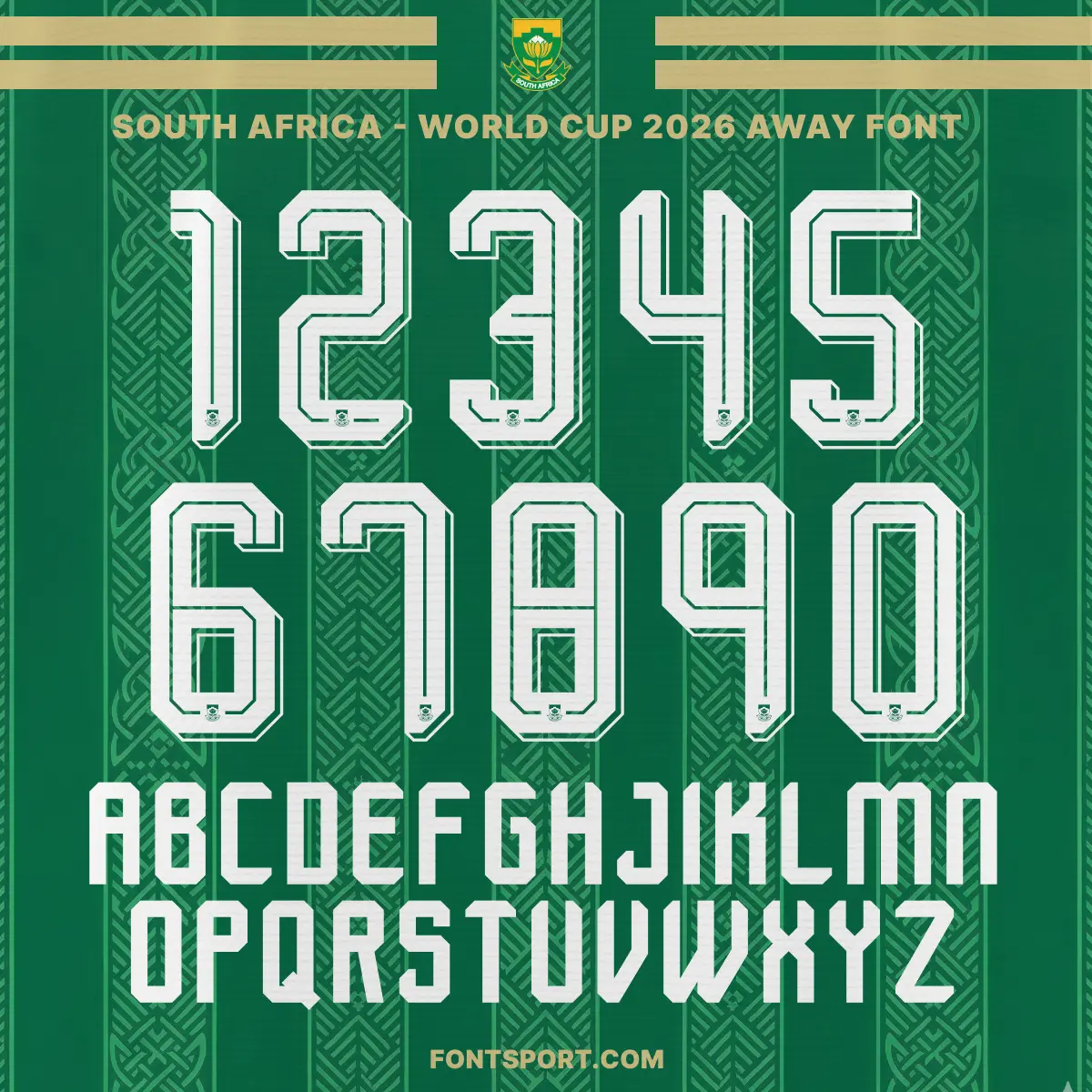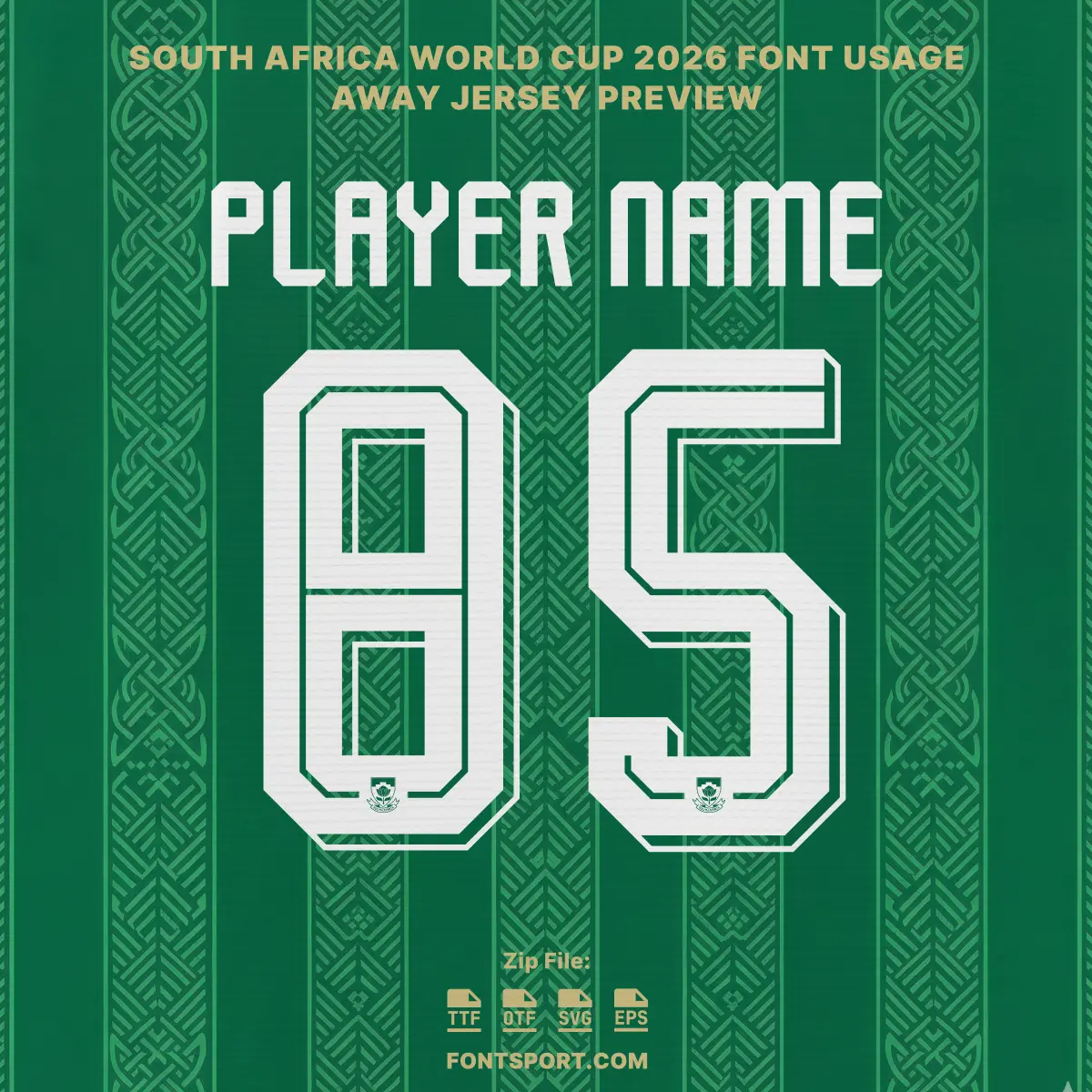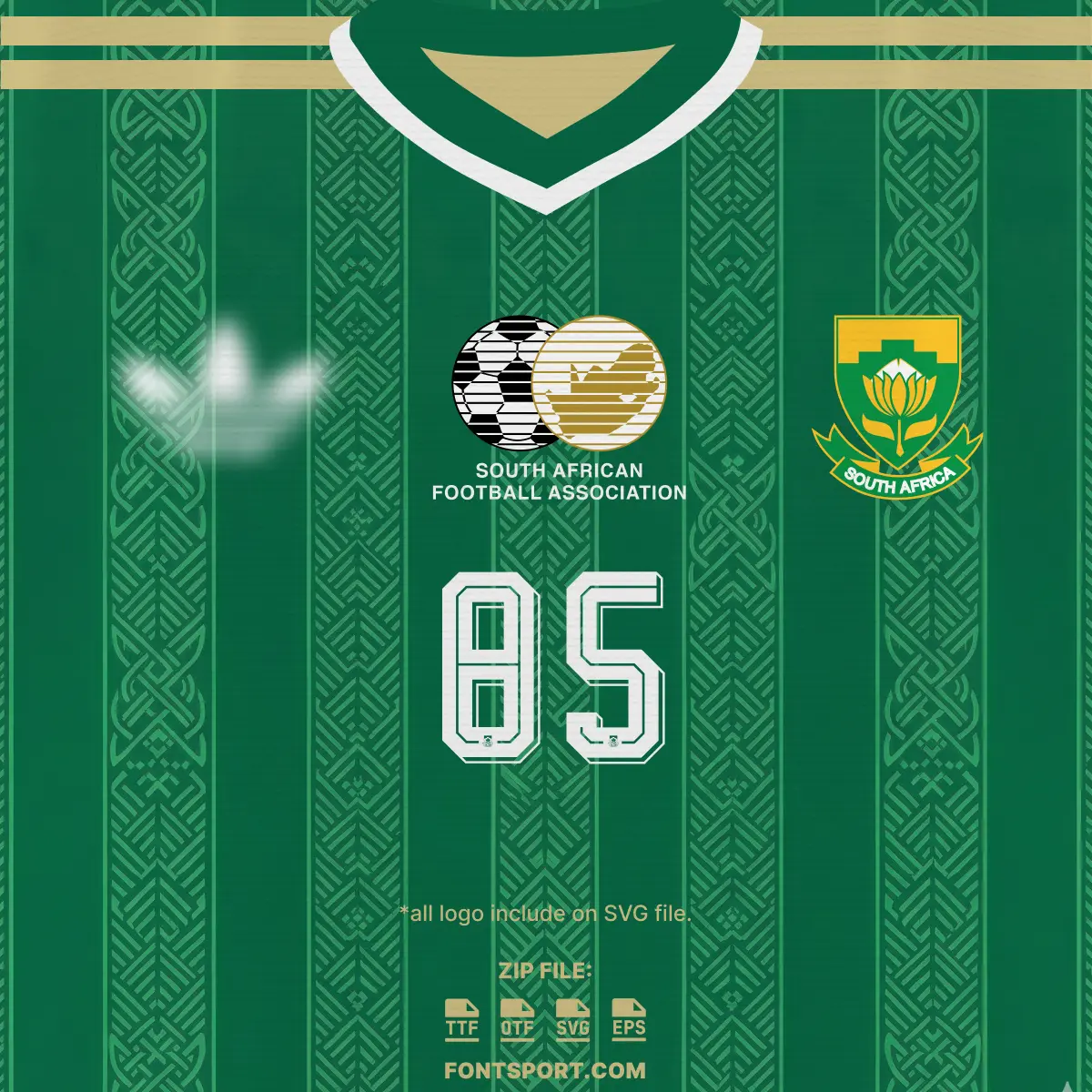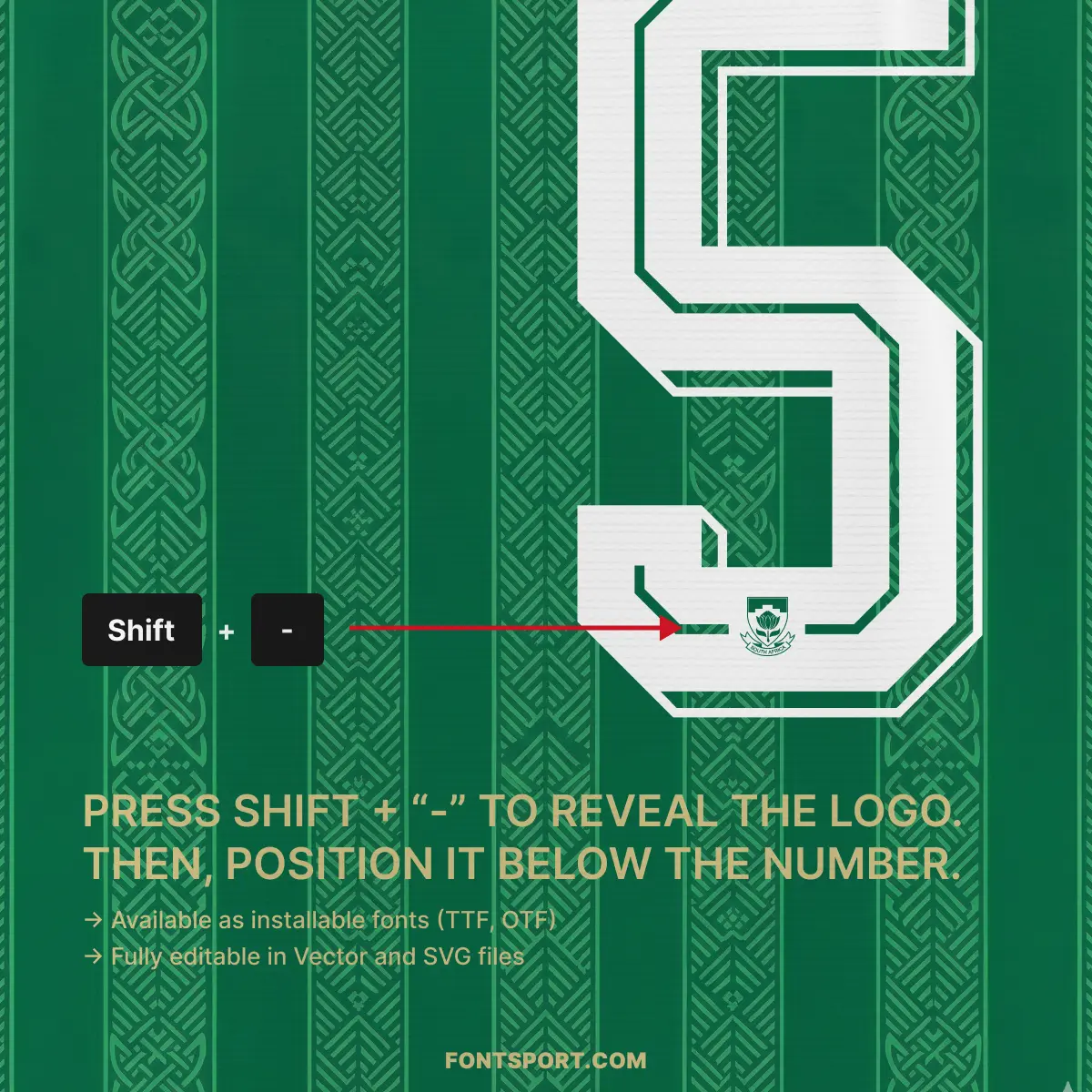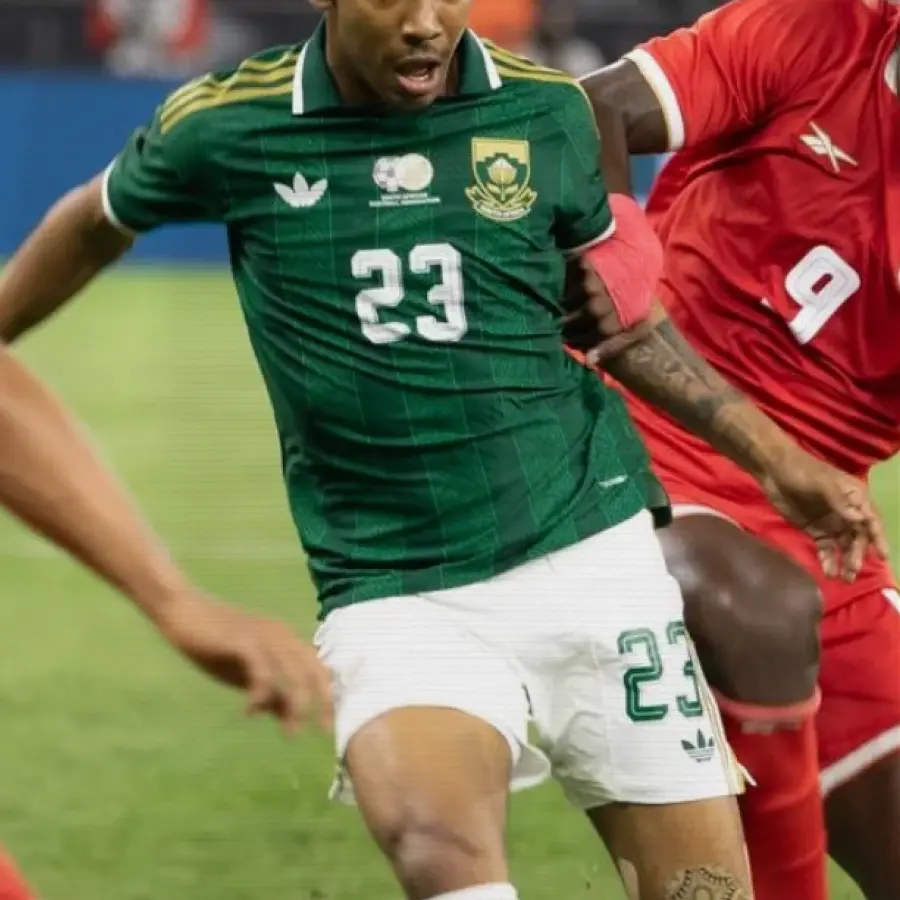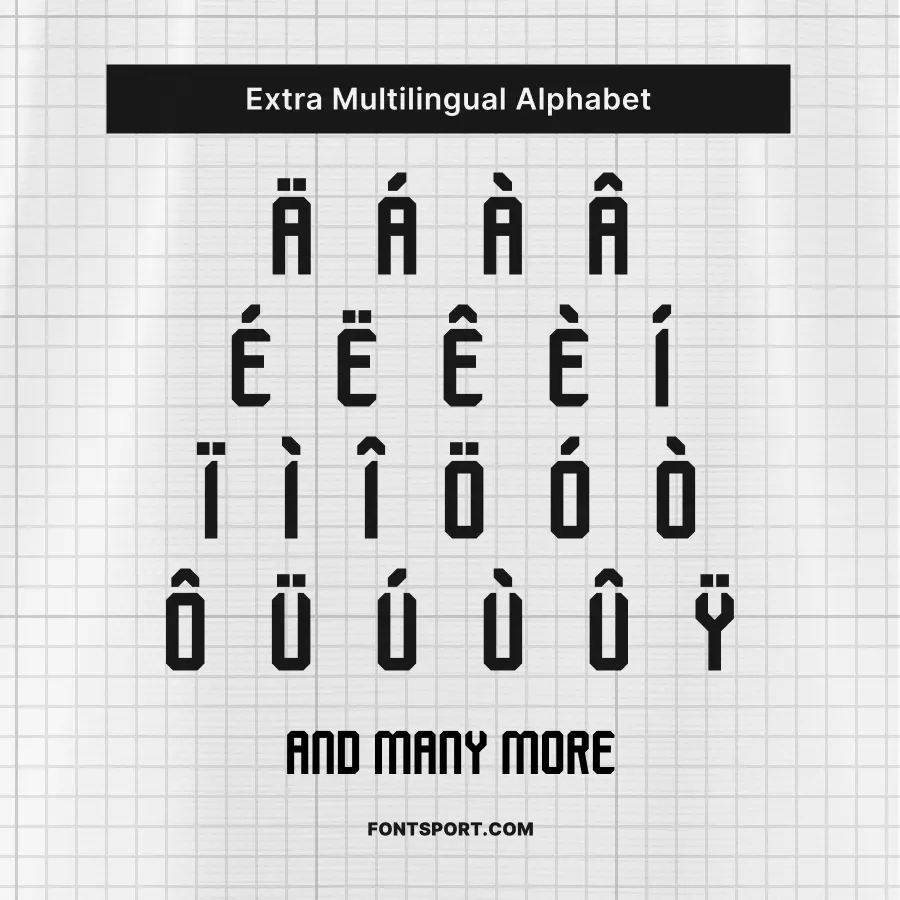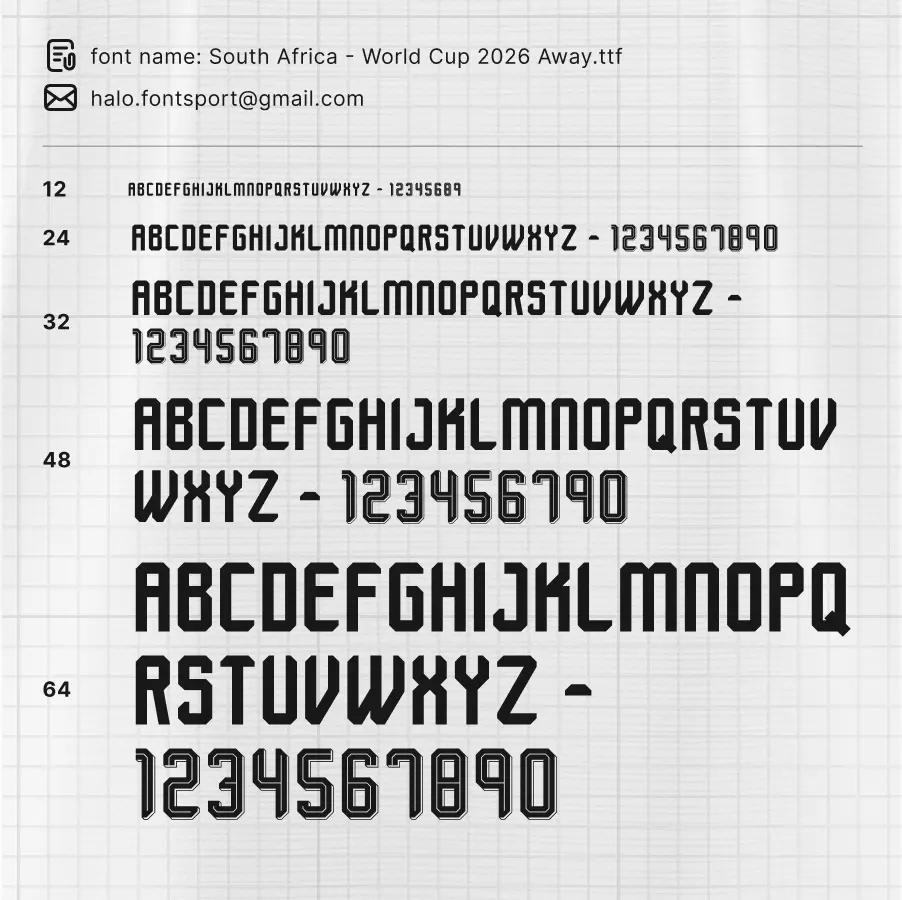
South Africa World Cup 2026 Away Font Kit – Football Typeface
The South Africa World Cup 2026 Away Font Kit captures the “United Spirit” of Bafana Bafana as they return to the global stage for the first time since 2010. This font mirrors the elegant and classic aesthetic of the 2026 away collection, which draws direct inspiration from the iconic 2010 away kit worn during South Africa’s historic hosting of the tournament. Featuring sharp, modern lines and a premium gold finish, this typeface is a key element of the new partnership with adidas, reflecting a sophisticated “Deep Green” identity for the North American campaign.
Complete A–Z Character Set: Features the clean, modern uppercase letters that will be worn by stars like Lyle Foster and Teboho Mokoena.
Full 0–9 Number Set: Optimized for maximum visibility, mirroring the centralized numbers seen in the recent international window.
Extra Multilingual Alphabet: Full support for accented characters, perfect for accurately rendering an international roster.
Integrated Team Identity: Add an authentic finish to your designs by revealing the official-style Protea crest or the classic white Trefoil through simple keyboard shortcuts.
This bundle is ideal for creating personalized football kits, striking match-day graphics, or unique merchandise that celebrates the “12 Voices, One Goal” spirit of South African football.
This font kit is built for designers who want to bridge the gap between historic nostalgia and elite athletic performance:
2010 Heritage Inspiration: Part of a landmark design that pays tribute to South Africa’s golden era through a traditional white fold-over polo collar and gold detailing.
Intricate Tonal Pattern: Specifically designed to complement the away jersey’s fabric, which features subtle geometric and zigzag motifs woven into vertical stripes.
Optimized for Apparel: An ideal font for jersey printing, sports branding, and team uniforms that require a “classic and elegant” appearance.
Versatile Design Asset: Use it as a football font for digital match-day banners or a sport font for physical print-on-demand products.